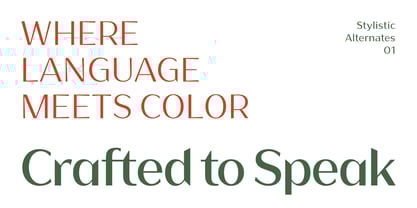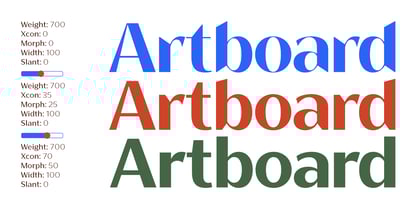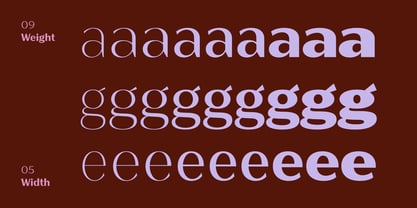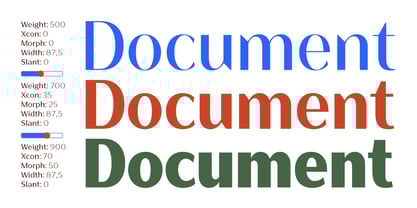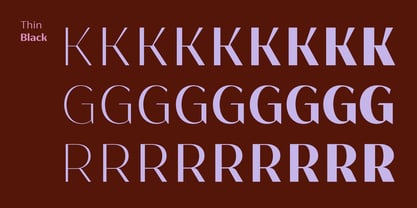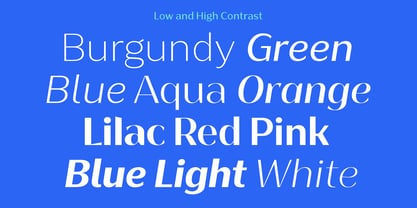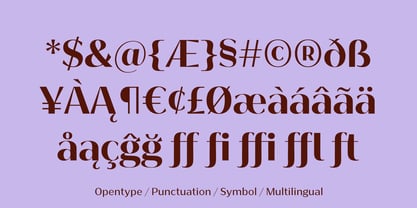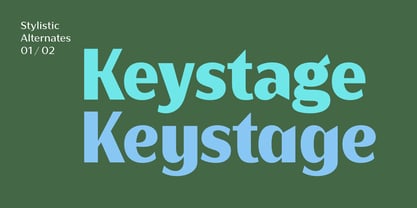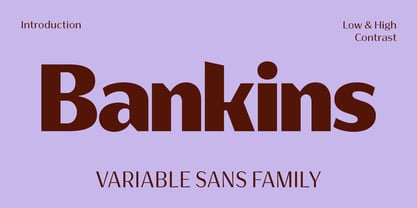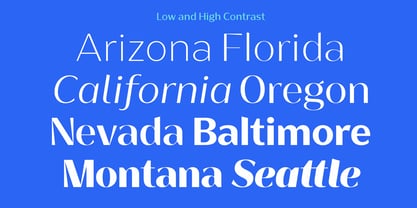
Bankins Variable
by Akbartype
The Bankins Variable Font Family was designed by Azzura . and published by Akbartype. Bankins Variable contains 1 styles. More about this family
Bankins Variable is a modern sans serif variable font family with five flexible axes—Weight, Xcon, Morph, Width, and Slant—designed to meet dynamic, contemporary design needs. This type family offers smooth transitions from thin to black weights, from compact to extended widths, and precise slant adjustments to finely control visual tone. The Morph and Xcon axes enable deeper exploration of letterform character, ranging from clean and neutral to more expressive styles, while maintaining excellent readability. Featuring additional alternate characters and full support for multiple international languages, it is ideal for branding, digital interfaces, editorial design, and modern typographic experimentation that demands both versatility and visual consistency.
Designers: Azzura .
Foundry: Akbartype